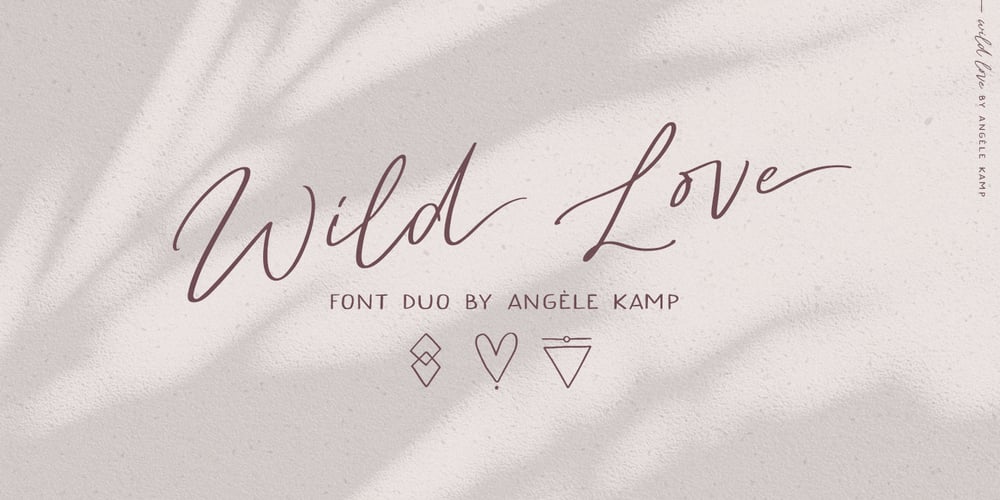
Wild Love Font Family was designed by Angele Kamp and published by Angele Kamp. Wild Love contains 2 styles and family package options. Wild love is an amazing collection of fonts that has everything you font lovers dream of. This beautiful collection comes with two fonts that pair perfectly together that will make designing Instagram quotes, websites & invitations so much easier and fun.WHAT’S INCLUDEDWILD LOVE SCRIPT (OTF) A lovely script font that includes 67 ligatures with letter combos that give you that gorgeous hand-lettered look. This font also includes 52 alternate start & end swashes for all of the lowercase characters.WILD LOVE SANS (OTF) This is an all caps font that pairs perfectly with the script font